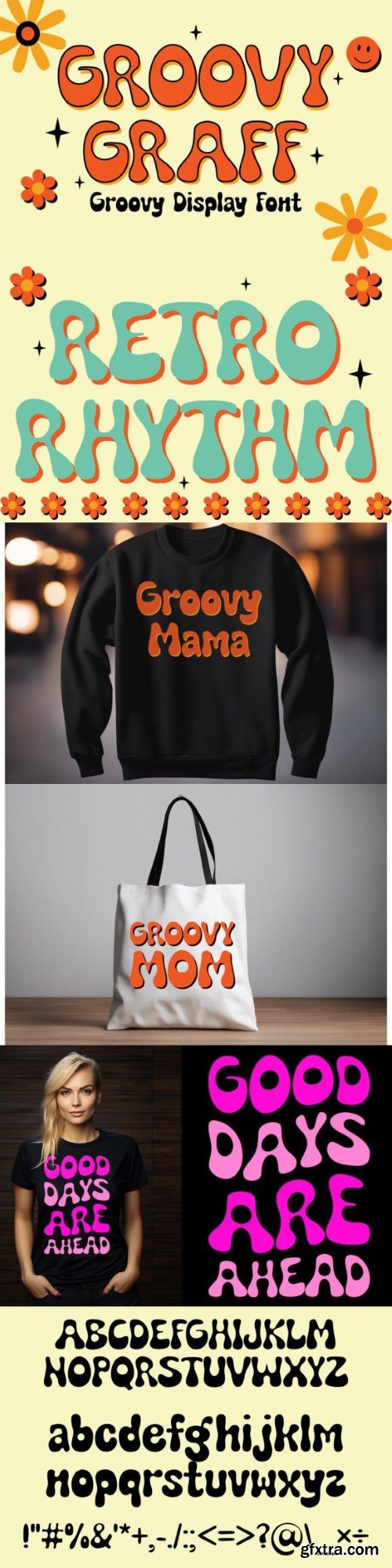
Get ready to travel back in time with Groovy Graff font! This funky typeface is a blast from the past, featuring vibrant curves, playful loops, and a retro vibe that will add a touch of ’70s coolness to your designs. Let the good vibes flow with this irresistibly groovy font that’s perfect for adding a dose of nostalgia to your projects.